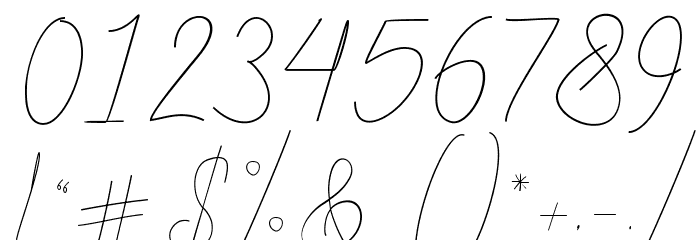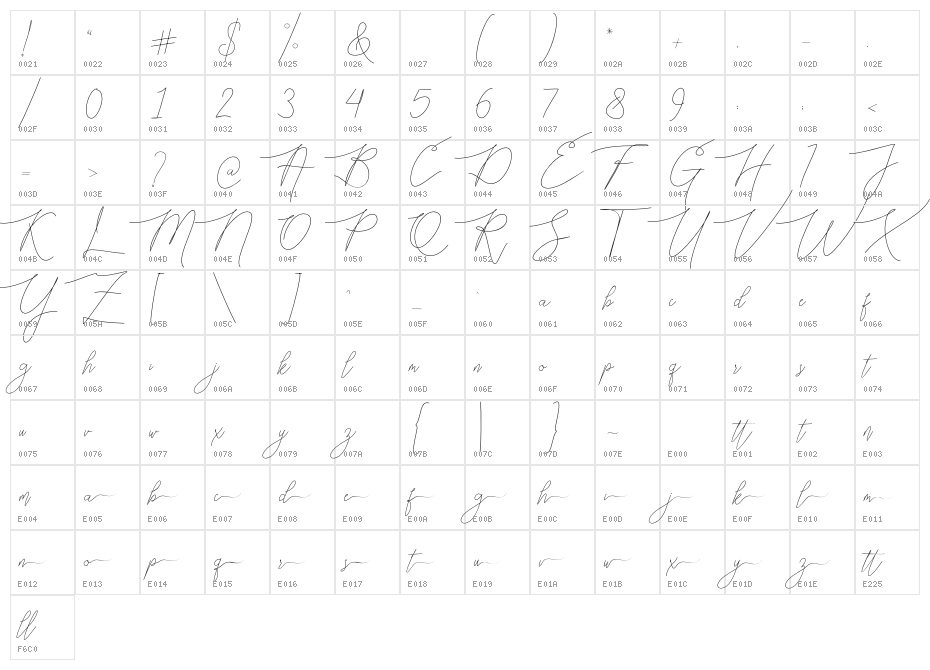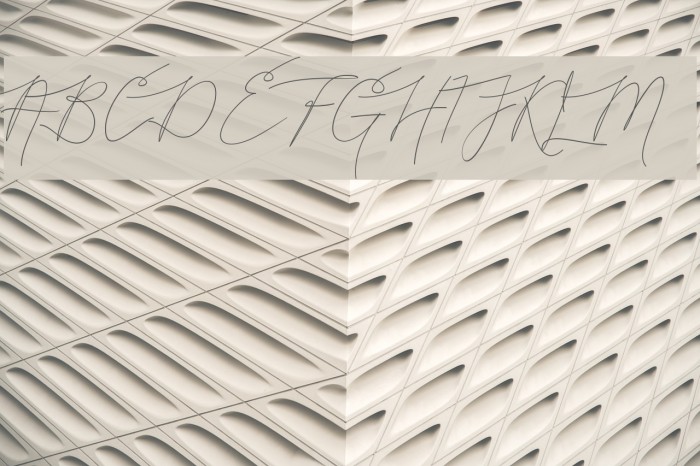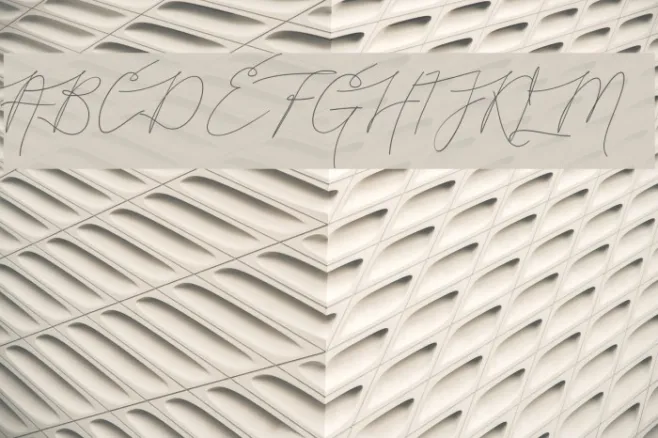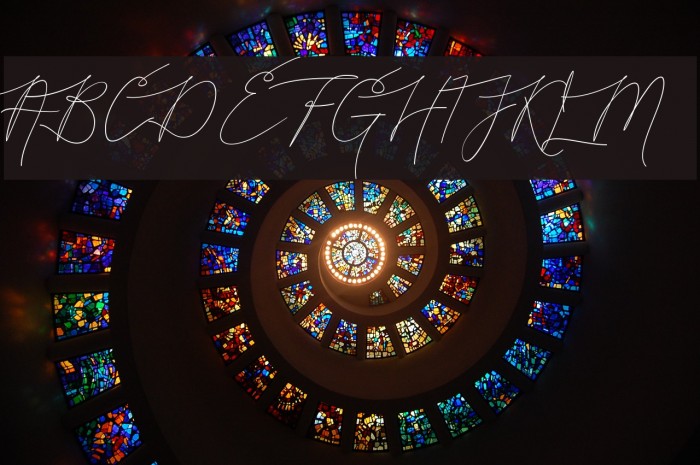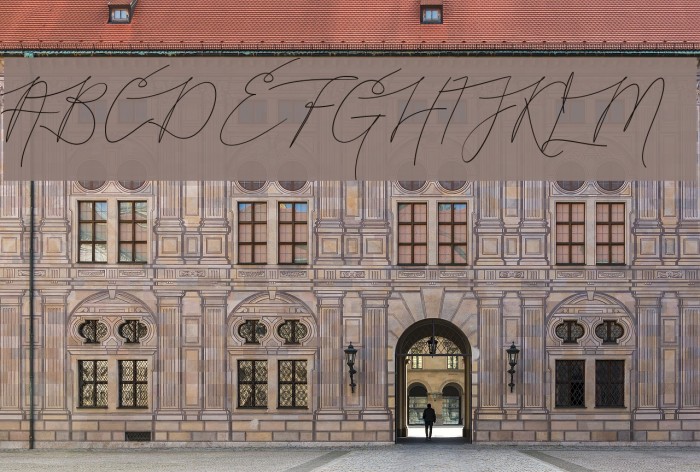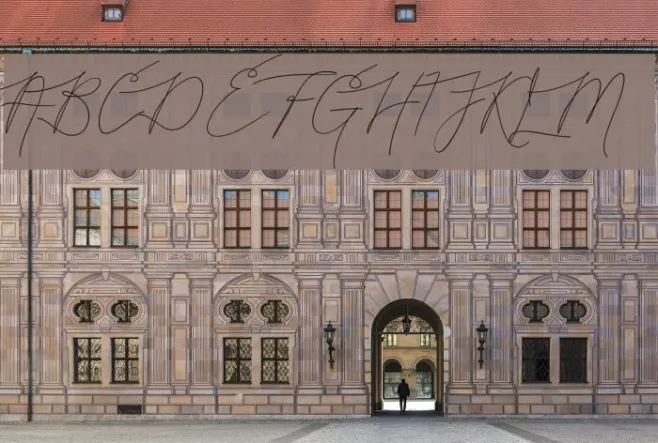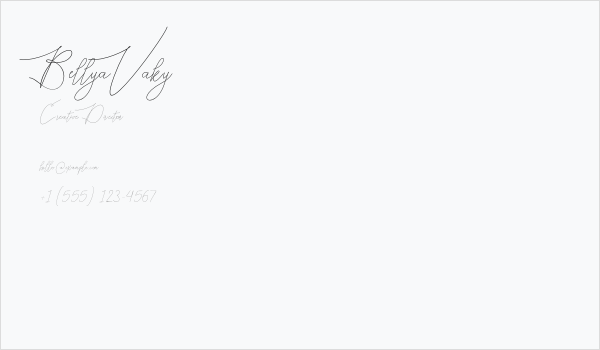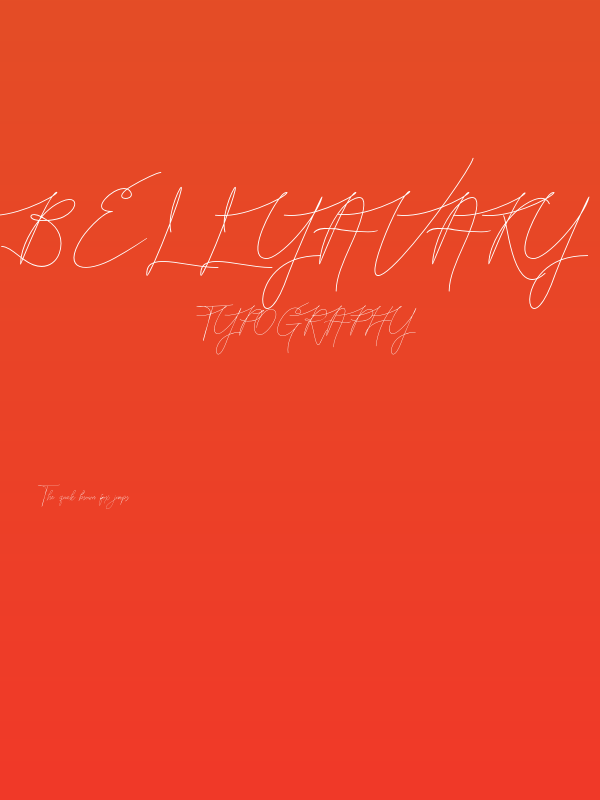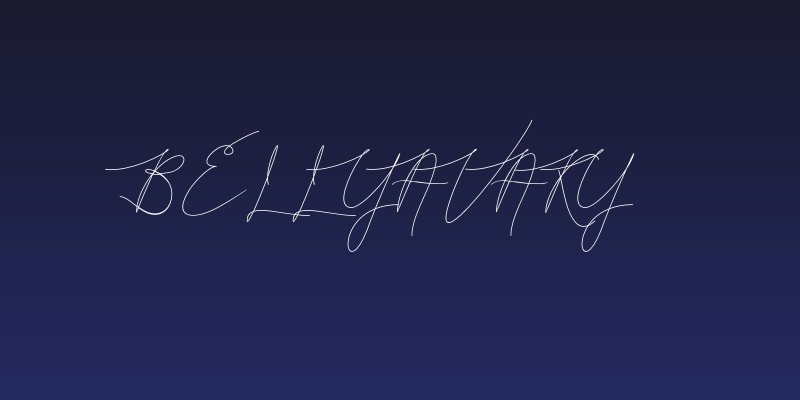
BellyaVaky Font
BellyaVaky Description
This font features an elegant and flowing script style, characterized by its thin, delicate strokes and graceful curves. The uppercase letters exhibit a sophisticated flair with extended ascenders and descenders, creating a sense of movement and fluidity. The lowercase letters maintain a consistent style, with smooth connections between characters that enhance readability while preserving the font's artistic nature. The numerals are designed with the same thin strokes, offering a cohesive look across all characters. Special characters are included, maintaining the font's overall aesthetic. This font is ideal for projects that require a touch of elegance and sophistication.
| Proposed Projects | Ideal for wedding invitations, elegant branding, luxury product packaging, and artistic posters. |